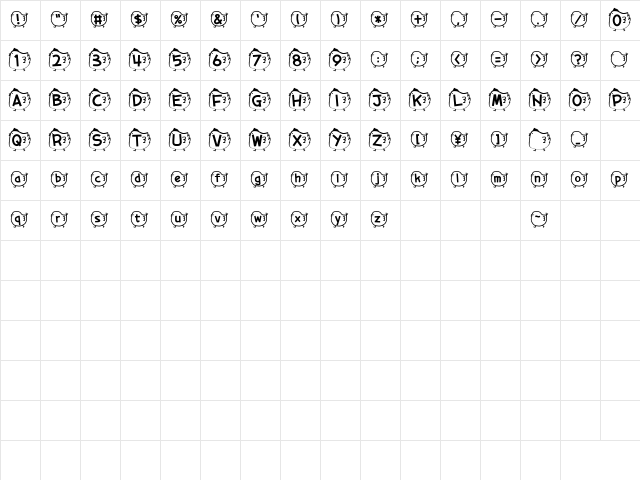
piyo piyo Regular
Design Context for piyo piyo Typeface
piyo piyo is a composed and adaptable typeface that performs quietly and consistently across a wide range of design contexts.
Pro Tip: Pair piyo piyo with a font of contrasting weight or personality to build a more expressive typographic hierarchy.